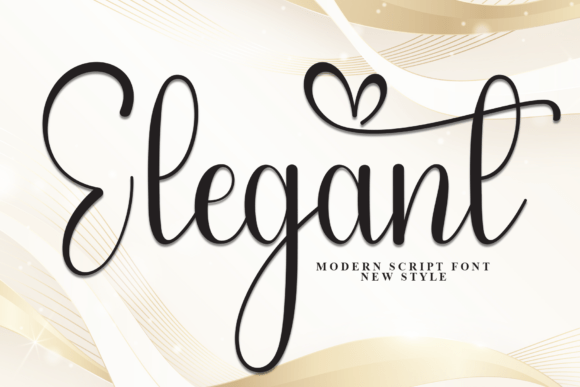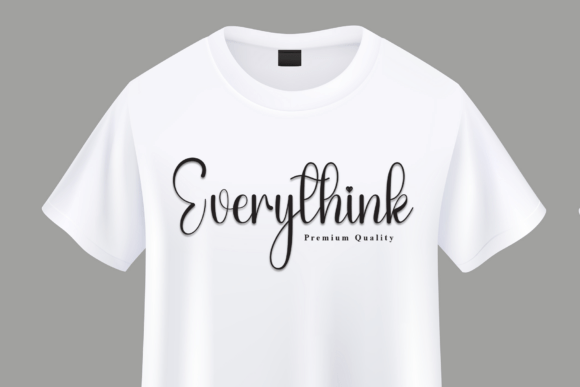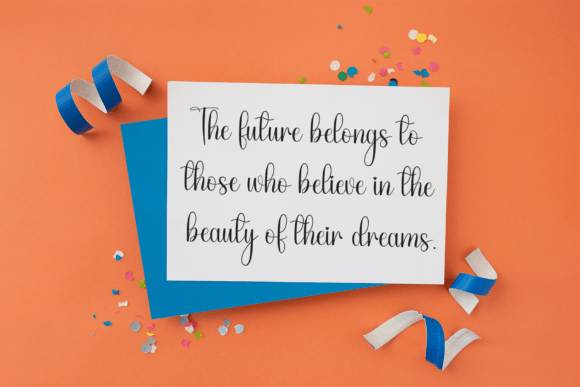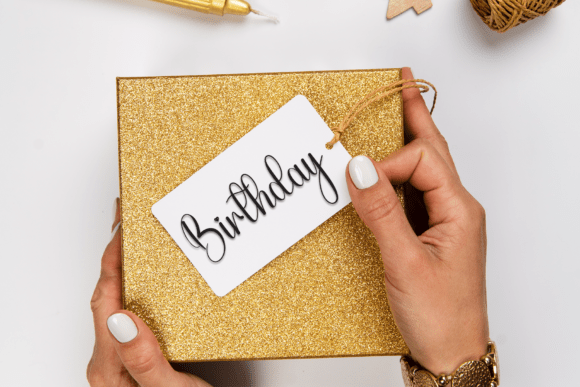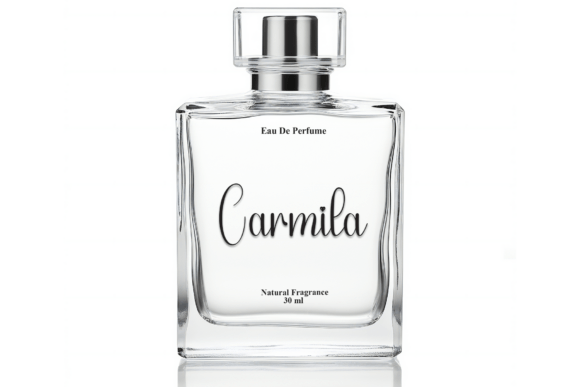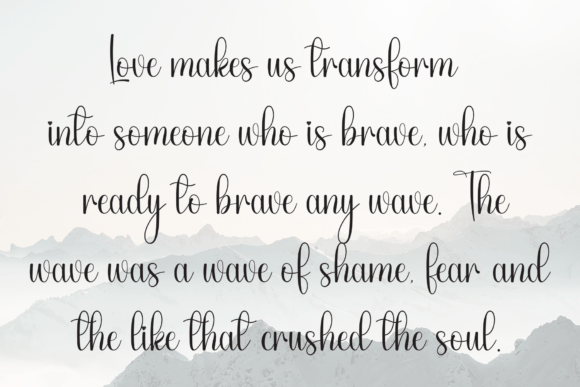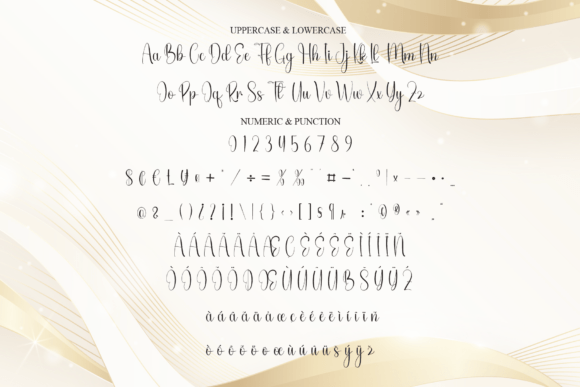
The Art of Expression: Elevating Your Designs with Elegant Font
Have you ever found yourself staring at a blank canvas, waiting for the perfect spark to ignite your creativity? It’s that moment when the ideas start flowing, and your imagination runs wild. For designers, this moment is what drives us to push the boundaries of innovation and artistry. And when we need to add a touch of sophistication and elegance to our work, Elegant Font becomes our trusted companion.
This stylish handwritten script font is designed to radiate elegance and fluidity, making it perfect for branding, invitations, and creative projects that require a personal, artistic touch. With Elegant Font, designers can add a modern and refined feel to their work, setting themselves apart from the crowd and elevating their designs to new heights.
Elegant Font Key Features
- Font Family: Elegant Font is a high-end font family available in 4 weights (Light, Regular, Medium, Bold) and 2 styles (Italic, Oblique).
- Character Set: The font includes a comprehensive character set, covering Latin, Cyrillic, Greek, and other languages, with over 1,200 glyphs.
- Unique Characteristics: The font features elegant lines, subtle curves, and a sophisticated feel, making it perfect for high-end branding, publishing, and advertising.
Elegant Font Review
I’ve had the chance to work with the Elegant Font, and I must say it’s been a mixed bag. On the one hand, there are some things that really stand out.
- ✨ **Sophisticated look**: The Elegant Font has a polished, high-end feel to it that’s perfect for luxury brands or high-end businesses.
- ✨ **Good readability**: The font is clear and easy to read, even at smaller sizes, making it a great choice for body text.
- ✨ **Wide language support**: The Elegant Font supports a wide range of languages, making it a great choice for global brands.
However, there are some limitations that I think are worth mentioning.
- ⚠️ **Limited flexibility**: The Elegant Font is a bit too formal to use for more casual brands or everyday applications.
- ⚠️ **Not suitable for headlines**: While the font is great for body text, it’s not the best choice for headlines or titles, as it can get lost in the background.
Overall, I think the Elegant Font is a solid choice for brands that want to convey a sense of luxury and sophistication. However, it may not be the best fit for every project.
The Elegant Font is perfect for:
- Blog and website titles
To get the most out of the Elegant Font, try:
- Combining it with other elegant fonts for a cohesive look.
- Adjusting the font size and color to create contrast.
- Using it in conjunction with graphics and images for a visually appealing design.
Alternatives to Elegant Font
Playfair Display is a luxurious, high-end font ideal for headings and titles. It features elegant connections and a classic touch. Use it when you want to add a touch of sophistication and luxury to your design. It’s more ornate and decorative compared to Elegant Font, making it perfect for high-end branding and packaging.
Didot is a classic, elegant font that’s perfect for formal and luxurious designs. It features a refined and sophisticated look, making it ideal for use in high-end branding, magazines, and books. Compared to Elegant Font, Didot is more refined and less ornate, but still conveys a sense of elegance and sophistication.
Georgia Pro
Georgia Pro is a serif font that’s designed for print and digital use. It’s a more modern take on the classic serif font, featuring a clean and elegant design. Use it when you want a font that’s both elegant and readable. Compared to Elegant Font, Georgia Pro is more modern and versatile, making it perfect for a wide range of designs.
Merriweather is a classic serif font that’s perfect for formal and elegant designs. It features a traditional look and feel, making it ideal for use in books, magazines, and academic papers. Compared to Elegant Font, Merriweather is more classic and less modern, but still conveys a sense of elegance and sophistication.
For optimal readability, we recommend using a font size between 12 and 14 points, with a line height of at least 1.5 times the font size. This will ensure that the text is clear and easy to read, even at smaller font sizes.